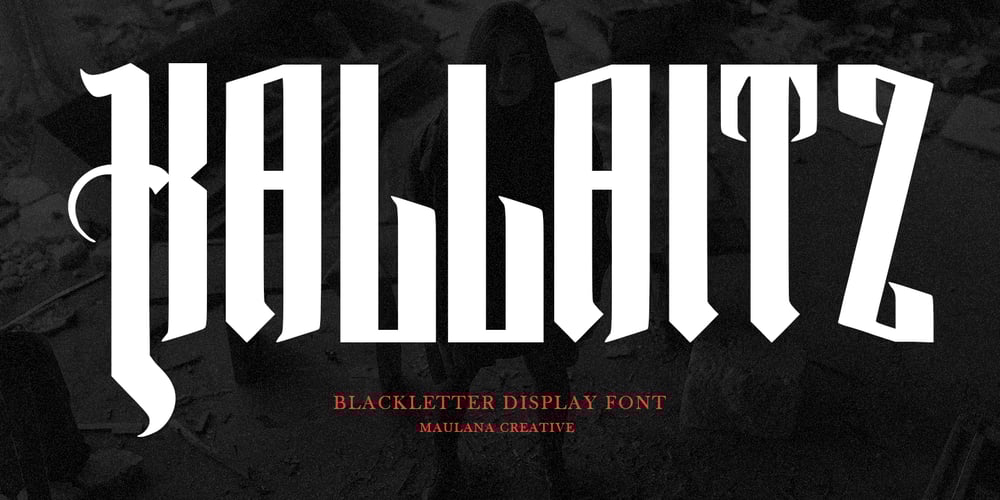
MC Kallaitz
MC Kallaitz font
MC Kallaitz Font Family was designed by Gilang Maulana and published by Maulana Creative. MC Kallaitz contains 1 styles and family package options. Kallaitz blackletter display font. Heavy stroke, vintage character with a awesome alternates. To give you an extra creative work. Kallaitz blackletter font support multilingual language. This font is good for logo design, Social media, Movie Titles, Books Titles, a short text even a long text letter and good for your secondary text font with script or serif. Make a stunning work with Kallaitz blackletter display font. Cheers, Maulana Creative